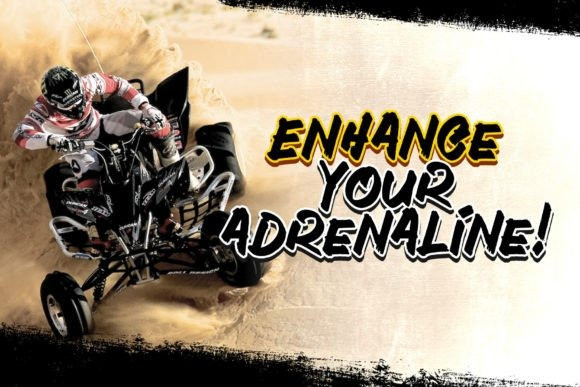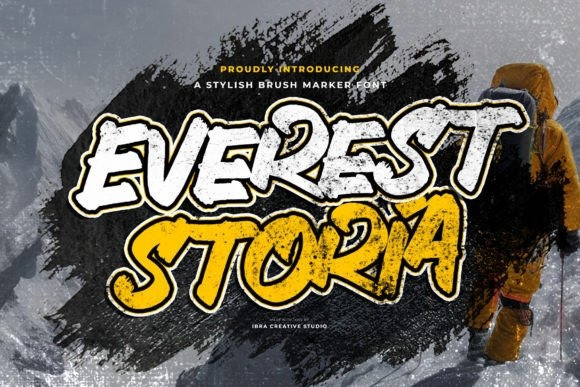
Everestoria Font
Everestoria Font is a stylish brush marker font that captures the essence of artistic expression and boldness. With its fluid and expressive brush strokes, Everestoria emulates the look and feel of a hand-painted masterpiece. Each letter exudes a sense of dynamism and flair, showcasing the authentic texture and character of brushwork. Its sophisticated yet approachable design makes it perfect for projects that demand a touch of elegance and creativity, such as logos, branding, and invitations. Everestoria Font is versatility shines through in its ability to effortlessly convey both a contemporary and timeless appeal, making it a go-to choice for designers seeking a captivating and stylish brush marker font.